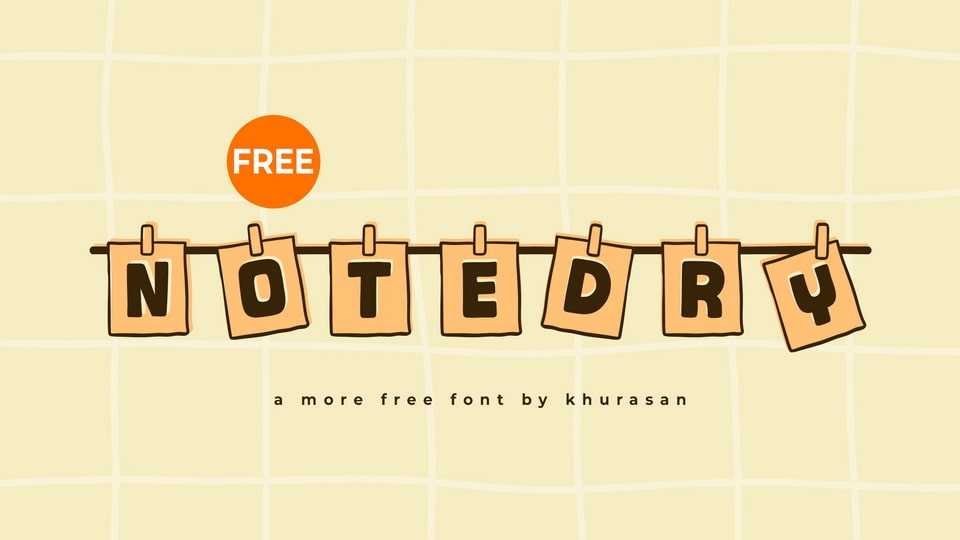
Download Notedry font, a quirky and friendly hand-crafted typeface designed to mimic hanging notes on a string with each letter is uniquely positioned on its own notecard.